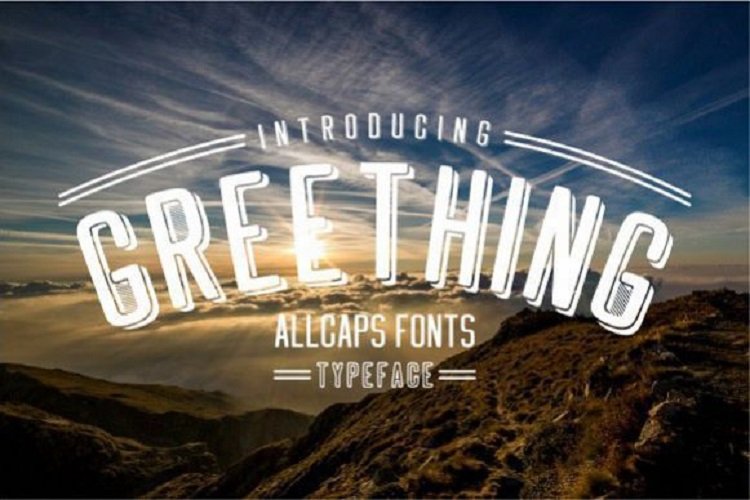
Greething Sans Font
GREETHING SANS is a simple vintage sans serif font and have shadow block or line which was created to meet the needs of your next design project.
Greething Family, Can used for various purposes. such as the title, logo, correspondence, wedding invitations, letterhead, signage, labels, newsletters, posters, badges, t-shirt, etc.